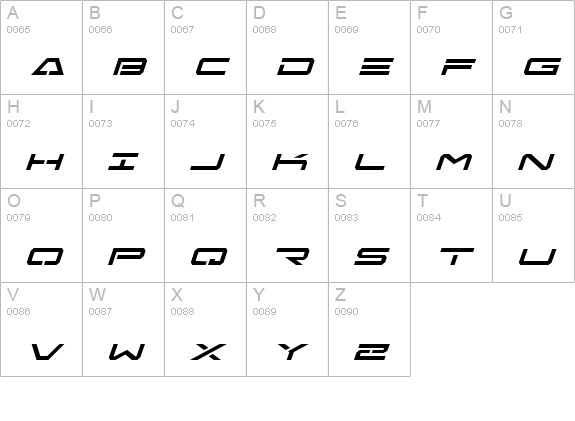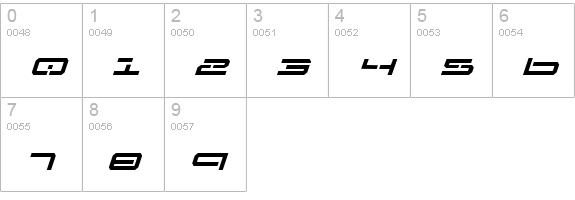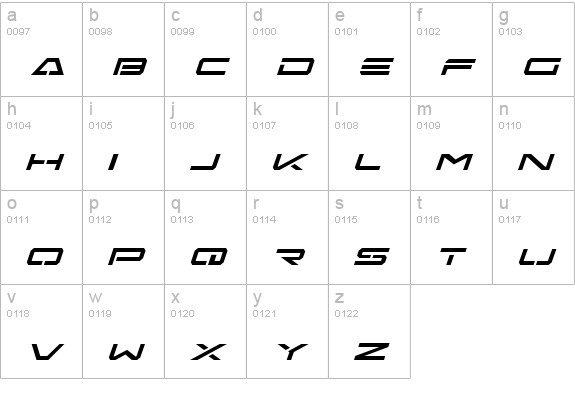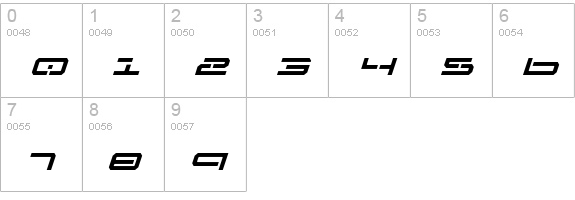
Free Agent Italic Font Details
Free Agent Italic is a distinctive, italic variant in the Free typeface family \xE2\x80\x94 well suited to design and typography projects.
Introducing Free Agent Italic font, a sleek and modern typeface that exudes sophistication and style. With its elegant italic design, this font is perfect for adding a touch of flair to your projects. The Free Agent Italic font is versatile and can be used for a wide range of design applications, from branding to editorial design. What sets this font apart is not just its stunning aesthetics, but also the fact that it is available for free download at FontsMarket.com. That's right, you can elevate your designs with this premium font without breaking the bank. Whether you're a designer, creative professional, or hobbyist, the Free Agent Italic font is a must-have addition to your font library. Download the Free Agent Italic font today and unleash your creativity with this stylish and sophisticated typeface.